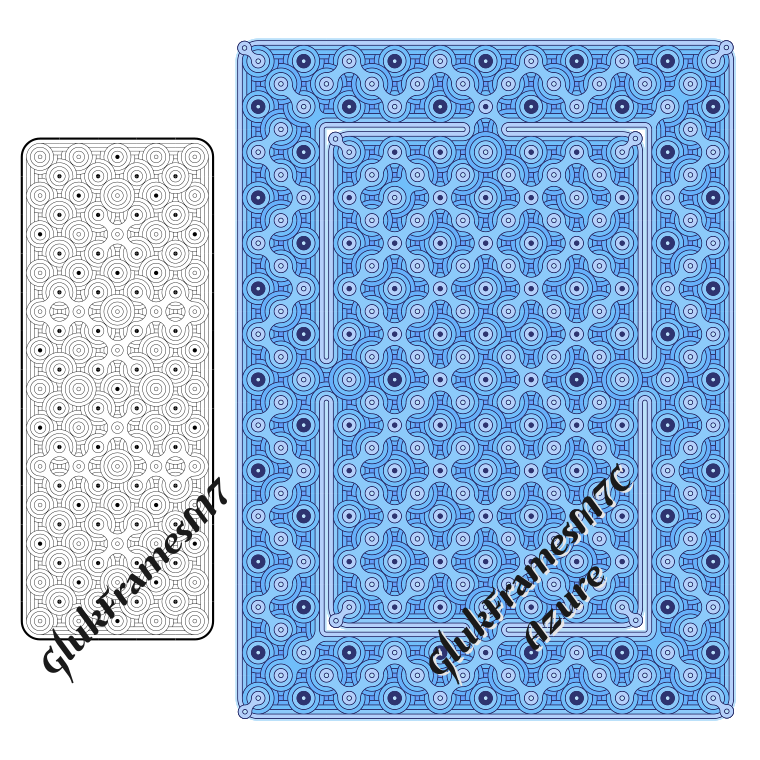
Font GlukFramesM7 made by gluk
Font GlukFramesM7 is a set of Ele­ments for cre­at­ing Frames and Pat­terns in .OTF For­mat. Addi­tional color font GlukFramesM7C-​Azure in Open­TypeSVG for­mat. To be able to use the color fonts you need to have installed pro­gram with Open­TypeSVG sup­port like a Adobe Phở­to­shop CC2017, Adobe Illus­tra­tor CC2018, InDe­sign CC2019 or Inkscape 1.0.